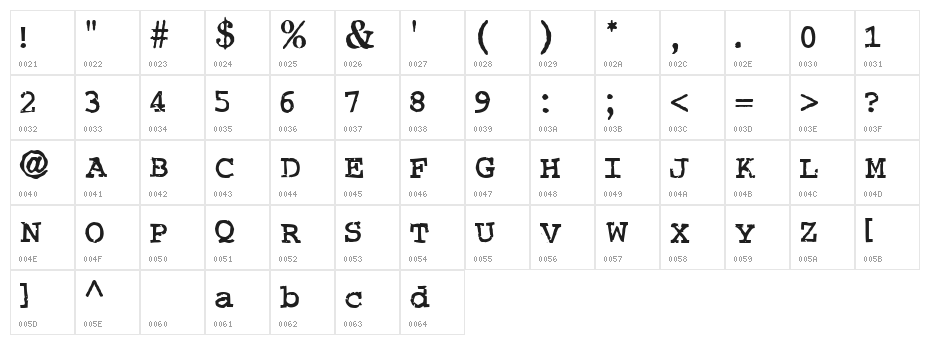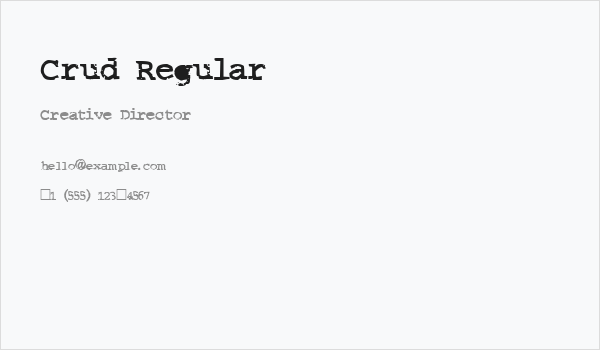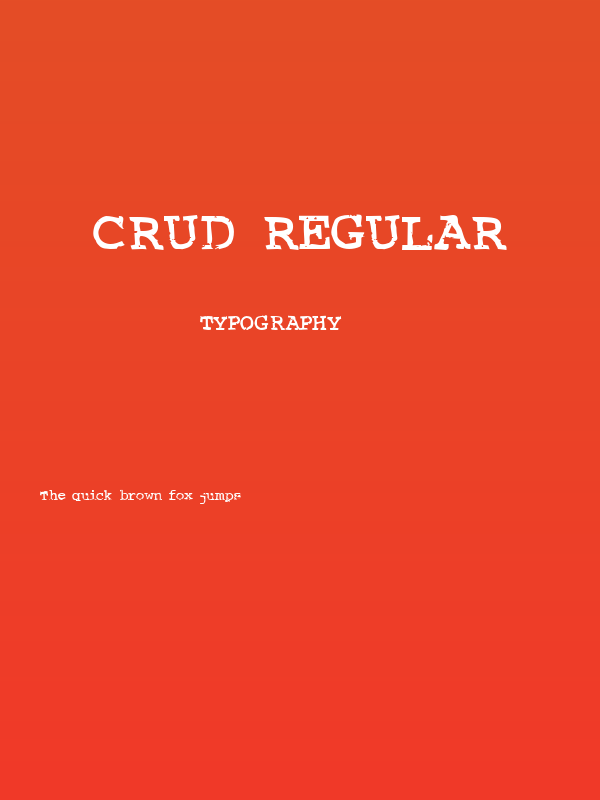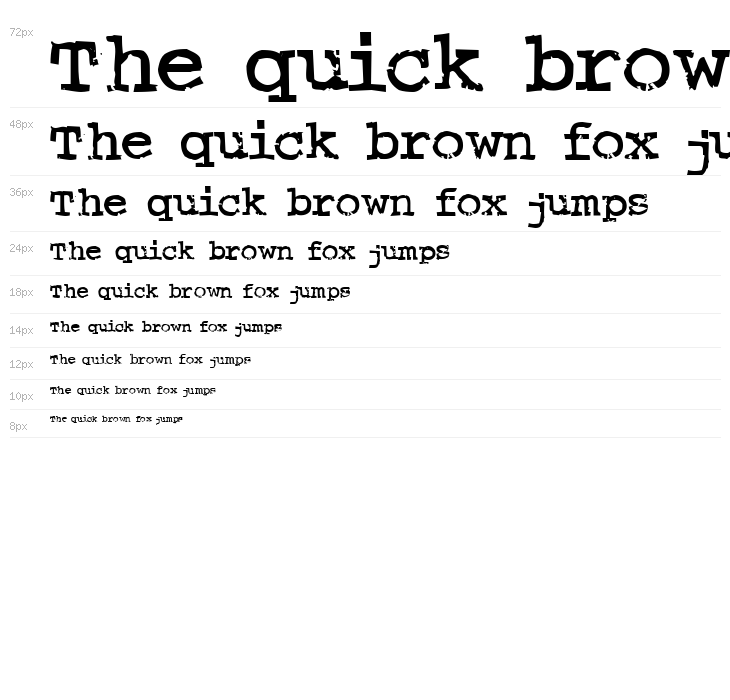
Crud Regular Font
Crud Regular Description
This font features a distressed and grungy appearance, with irregular edges and a textured look that gives it a worn, vintage feel. The characters are bold and have a slab serif style, with thick strokes that vary slightly in width, adding to the rugged aesthetic. The uppercase and lowercase letters maintain a consistent design, while the numbers and special characters complement the overall style. This font's unique, rough texture makes it stand out, ideal for projects that require a bold, eye-catching typeface.
| Proposed Projects | Ideal for posters, album covers, branding for edgy or alternative products, and any design needing a vintage or rugged look. |